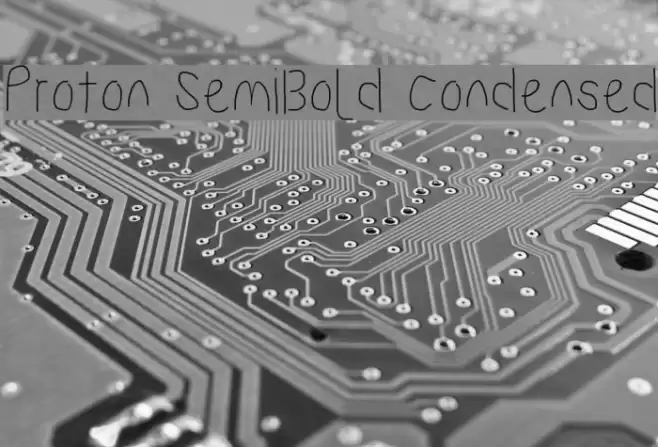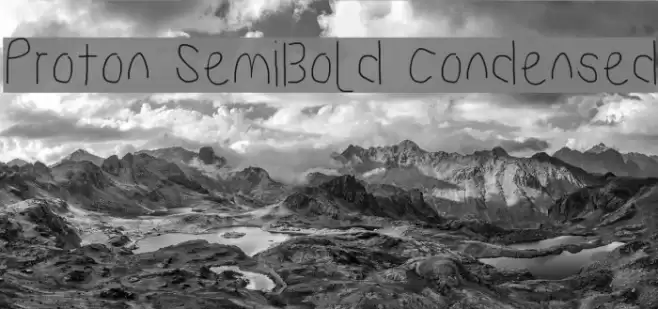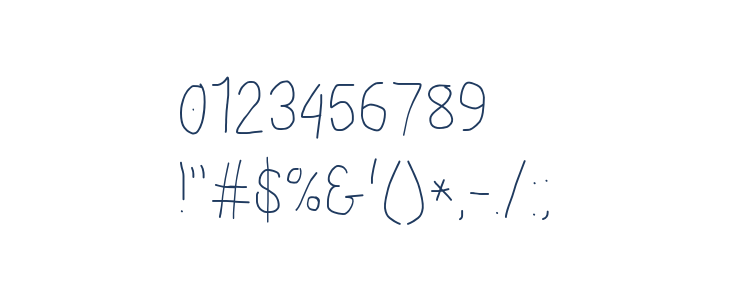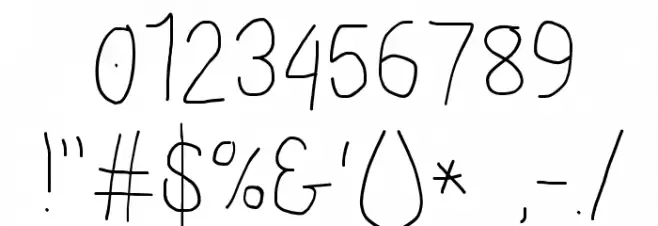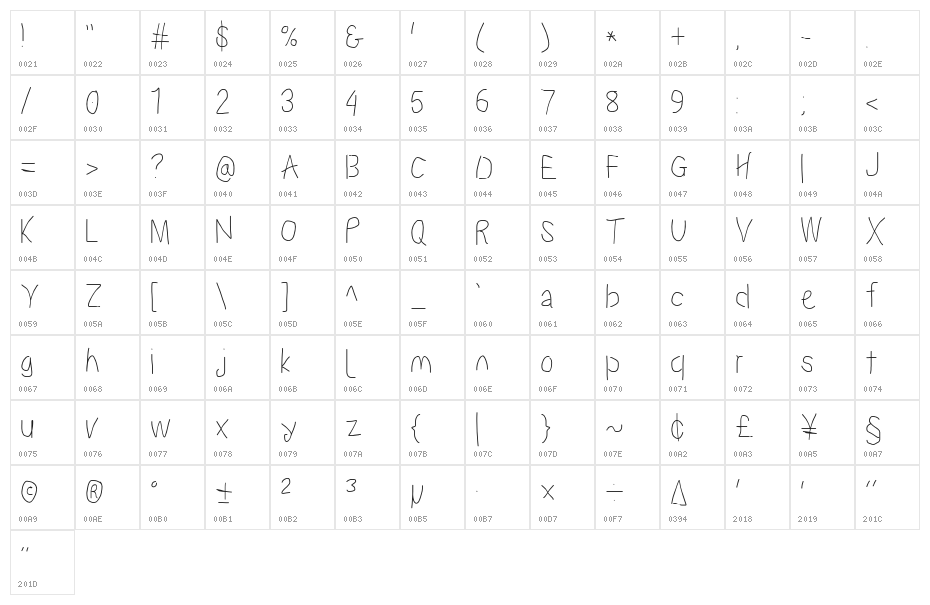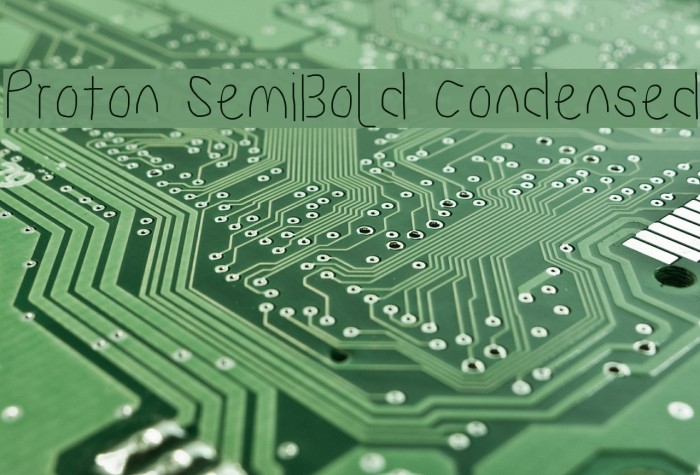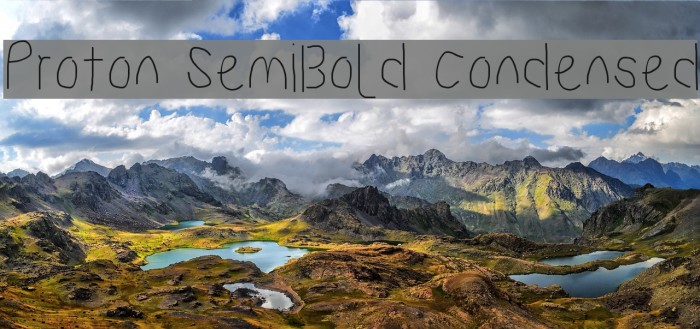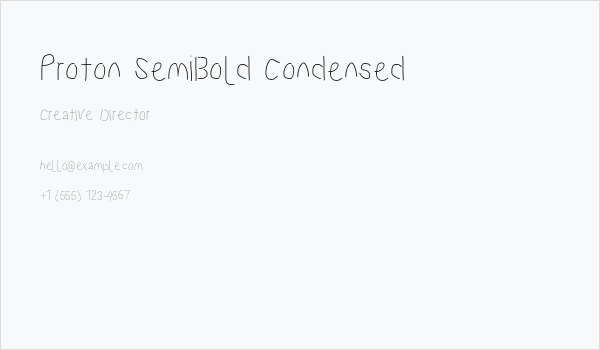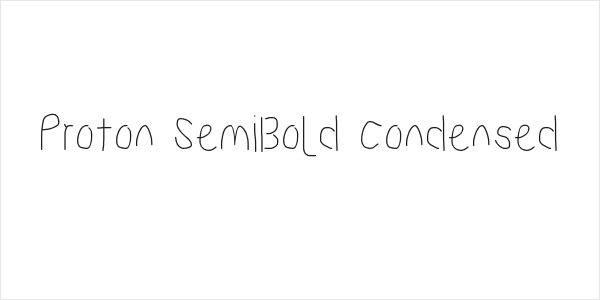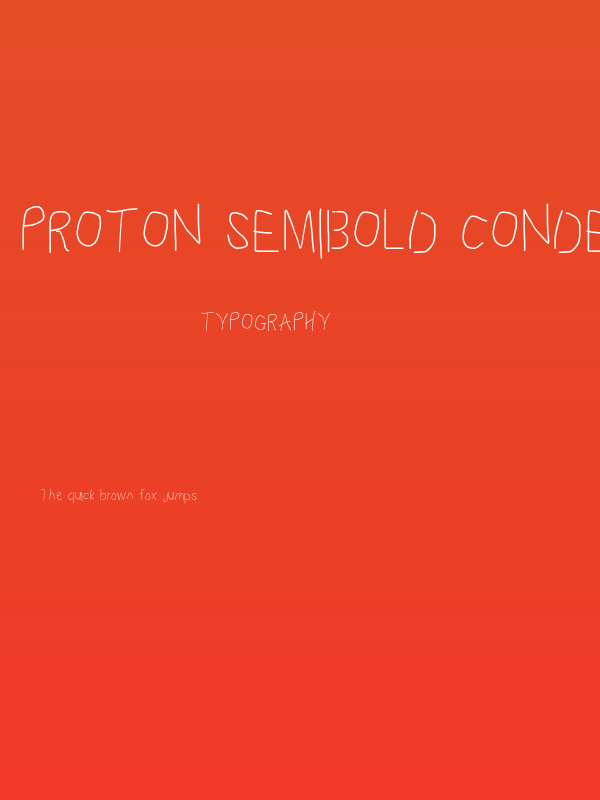
Proton SemiBold Condensed Font
Proton SemiBold Condensed Description
This font features a playful and informal handwritten style, characterized by its semi-bold weight and condensed letterforms. The strokes are uneven and slightly irregular, giving it a casual and approachable appearance. The uppercase and lowercase letters maintain a consistent height, contributing to its readability. The numerals and special characters follow the same whimsical style, making it suitable for creative and informal projects. The overall design is modern and unique, with a touch of personality that sets it apart from more traditional fonts.
A playful, semi-bold handwritten font with condensed letterforms from Uncategorized fonts.
- Proposed Projects: Ideal for children's books, greeting cards, casual branding, and creative posters.
- Use Case: Headlines, Logos, Informal Text